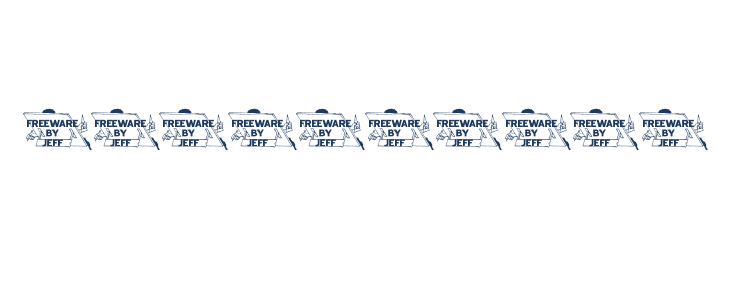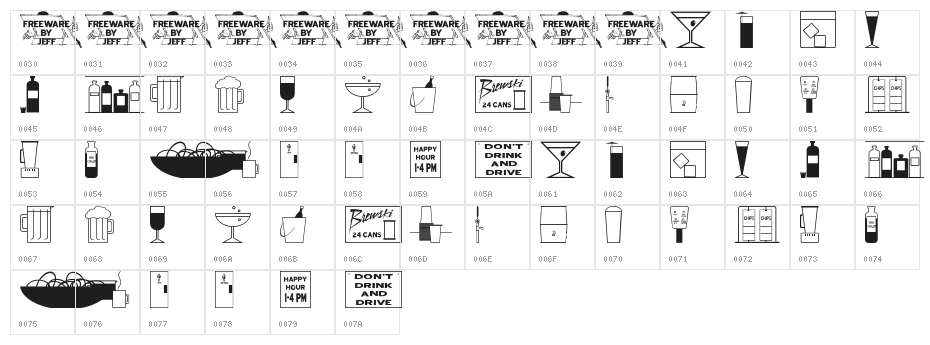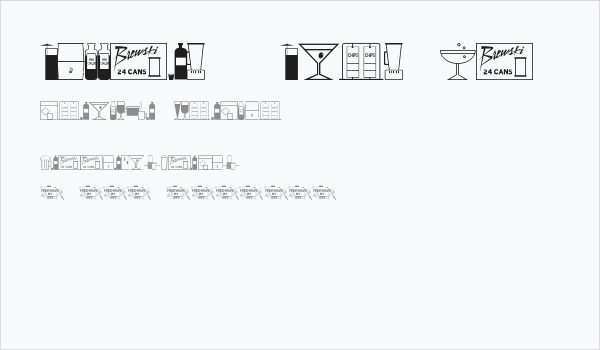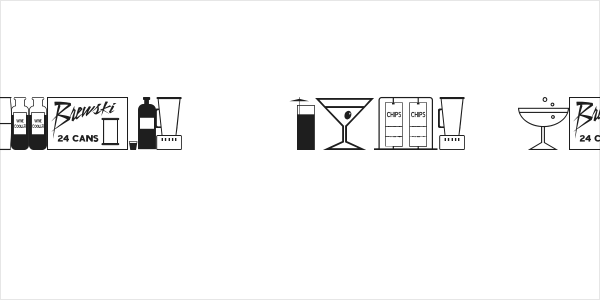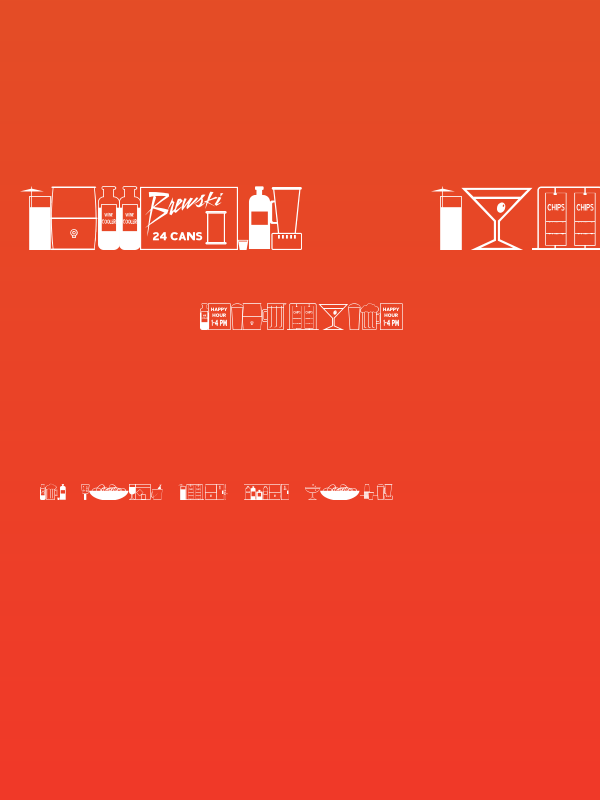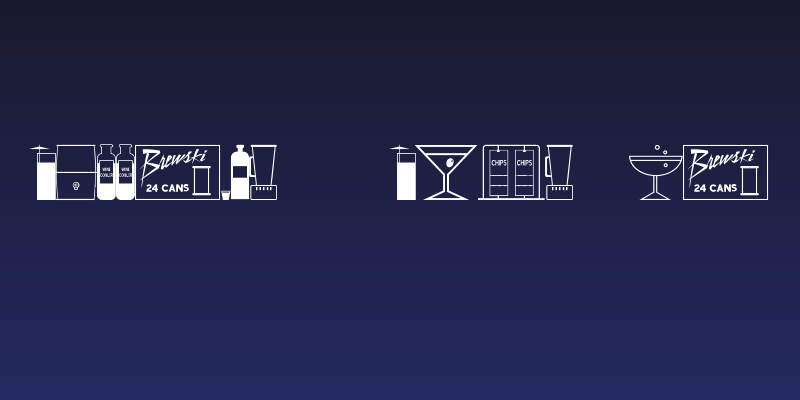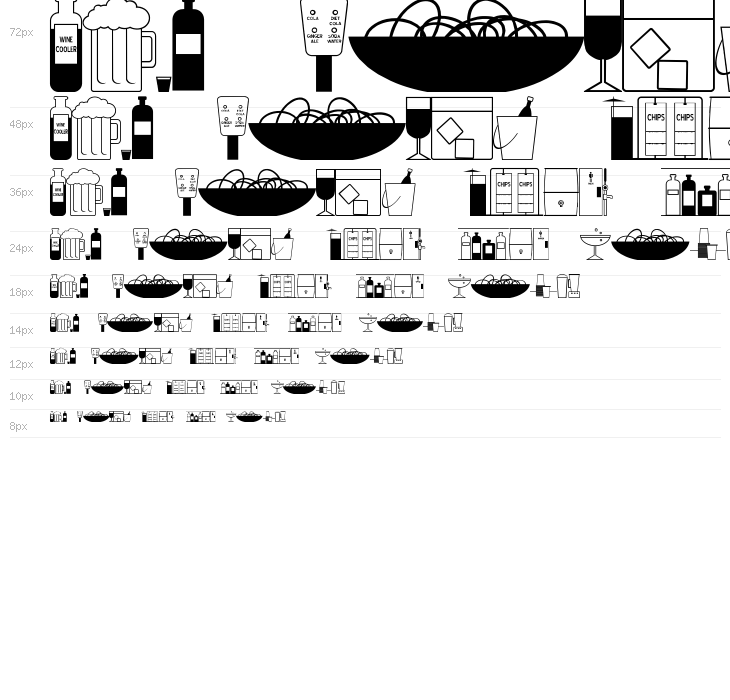
Bottles & Bars JL Font
Bottles & Bars JL Description
This is not a traditional font but rather a collection of decorative icons and symbols related to bars and beverages. It includes images of martini glasses, beer mugs, bottles, and various bar-related items. The style is playful and illustrative, making it suitable for themed designs or projects that require a fun, informal touch. The icons are clear and distinct, with a mix of filled and outline styles, providing a versatile set of graphics for creative use.
| Use Case | Logos, Decorative elements |
| Proposed Projects | Ideal for designing bar menus, party invitations, or themed event posters. |